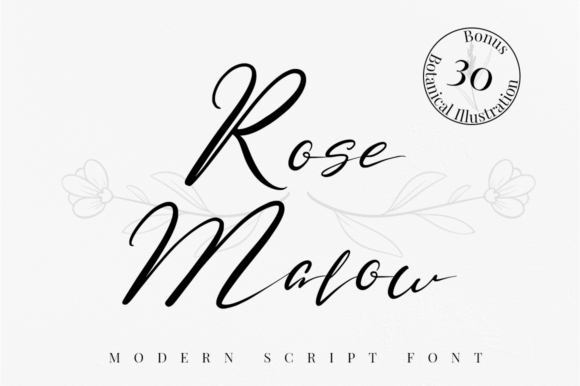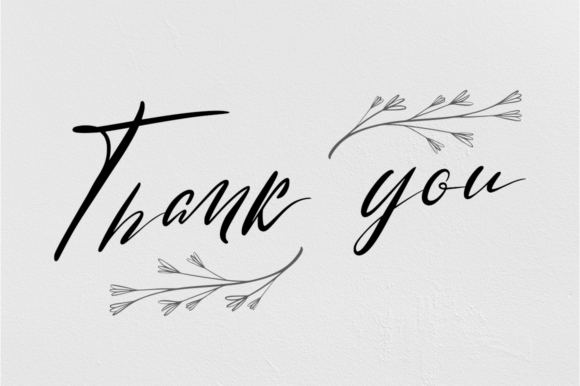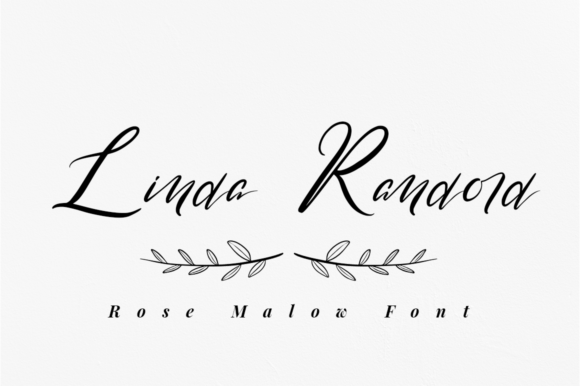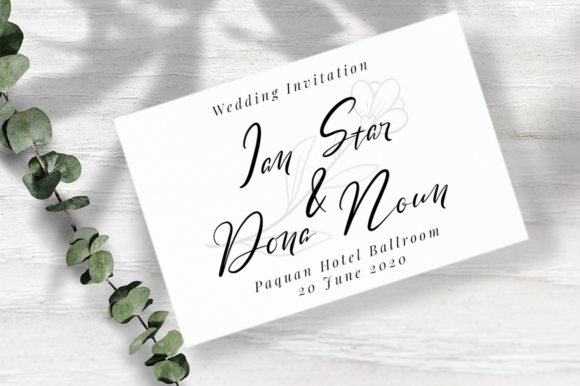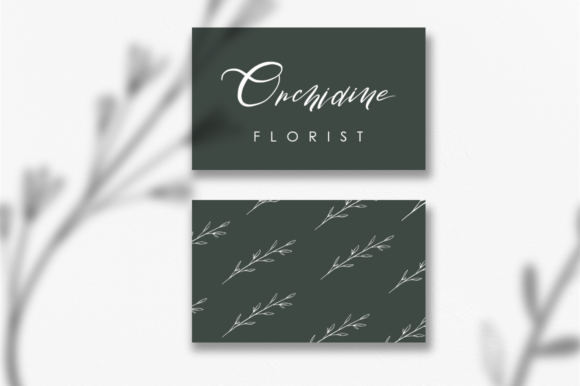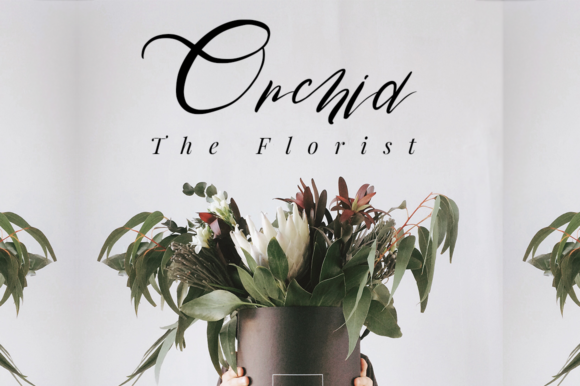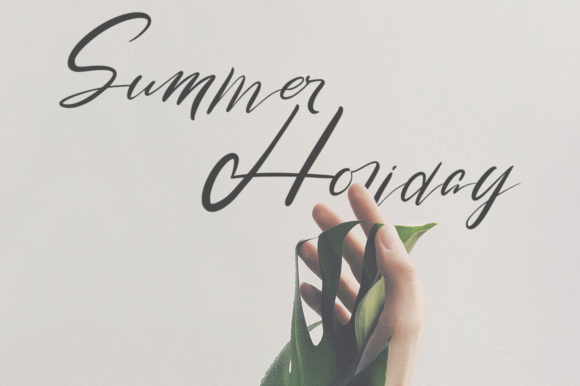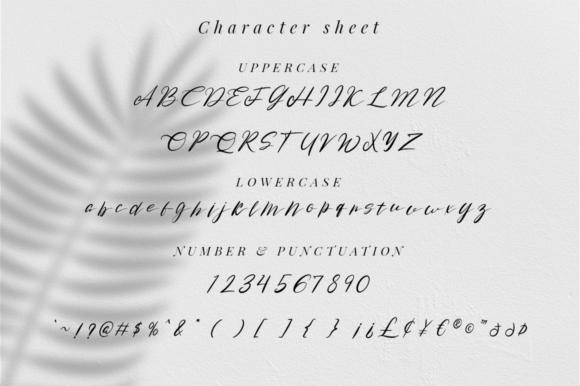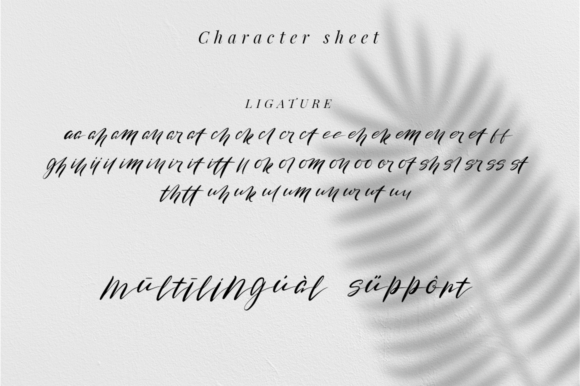
Rose Malow Font
About Rose Malow Font
Rose Malow is a beautiful and light handwritten font with an incredibly light feel. Use it to add a cool and authentic vibe to any design project!